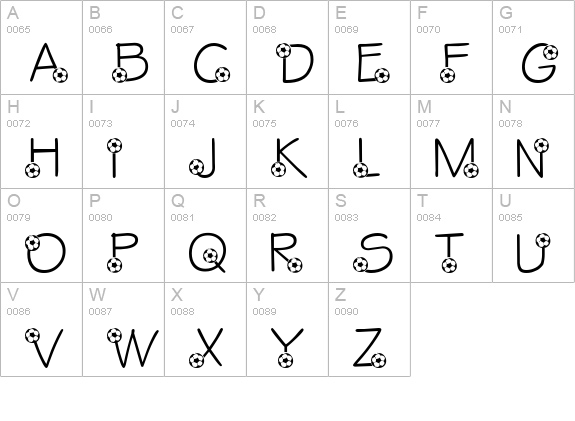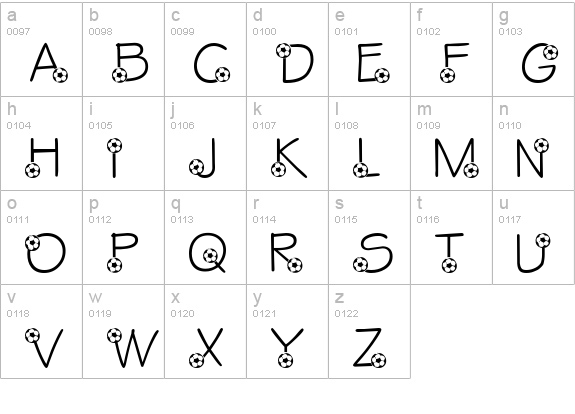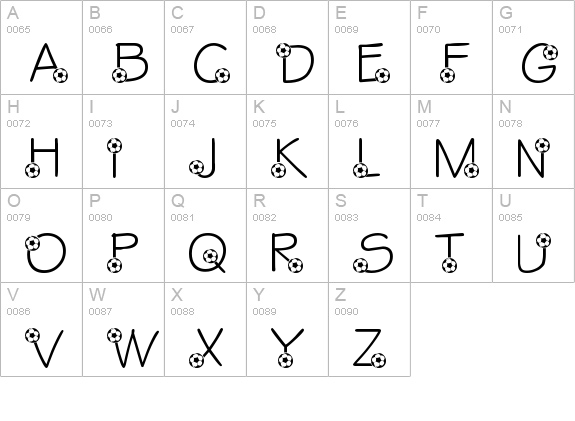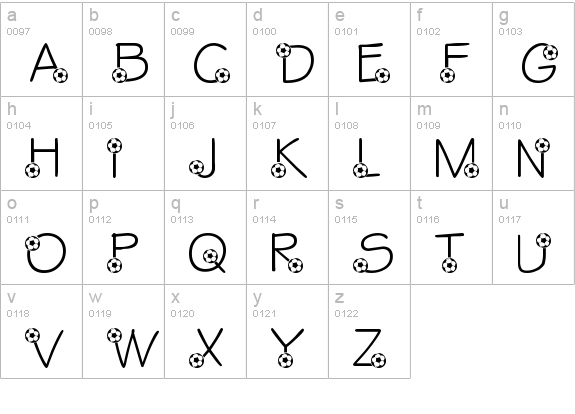
LMS Ethan's Game font is a captivating and playful typeface that is perfect for adding a touch of fun and excitement to any design project. With its unique and quirky letterforms, this font is sure to catch the eye and leave a lasting impression. What makes LMS Ethan's Game font even more appealing is the fact that it is freely available to download at FontsMarket.com. Yes, you heard that right – this amazing font can be yours at no cost! Whether you are a professional designer looking to enhance your creations or simply someone who loves experimenting with different fonts, LMS Ethan's Game is a must-have addition to your collection. With its bold and vibrant style, LMS Ethan's Game font is ideal for a wide range of applications. From posters and flyers to logos and social media graphics, this font will bring your designs to life and make them stand out from the crowd. Its playful nature is perfect for conveying a sense of joy and excitement, making it an excellent choice for projects aimed at children or those that require a touch of whimsy. Not only does LMS Ethan's Game font offer a visually appealing aesthetic, but it also provides excellent legibility. Each letter is carefully crafted to ensure clarity and readability, ensuring that your message is conveyed effectively. So why wait? Head over to FontsMarket.com and download LMS Ethan's Game font today. Give your designs a playful edge and let your creativity shine with this incredible free font.